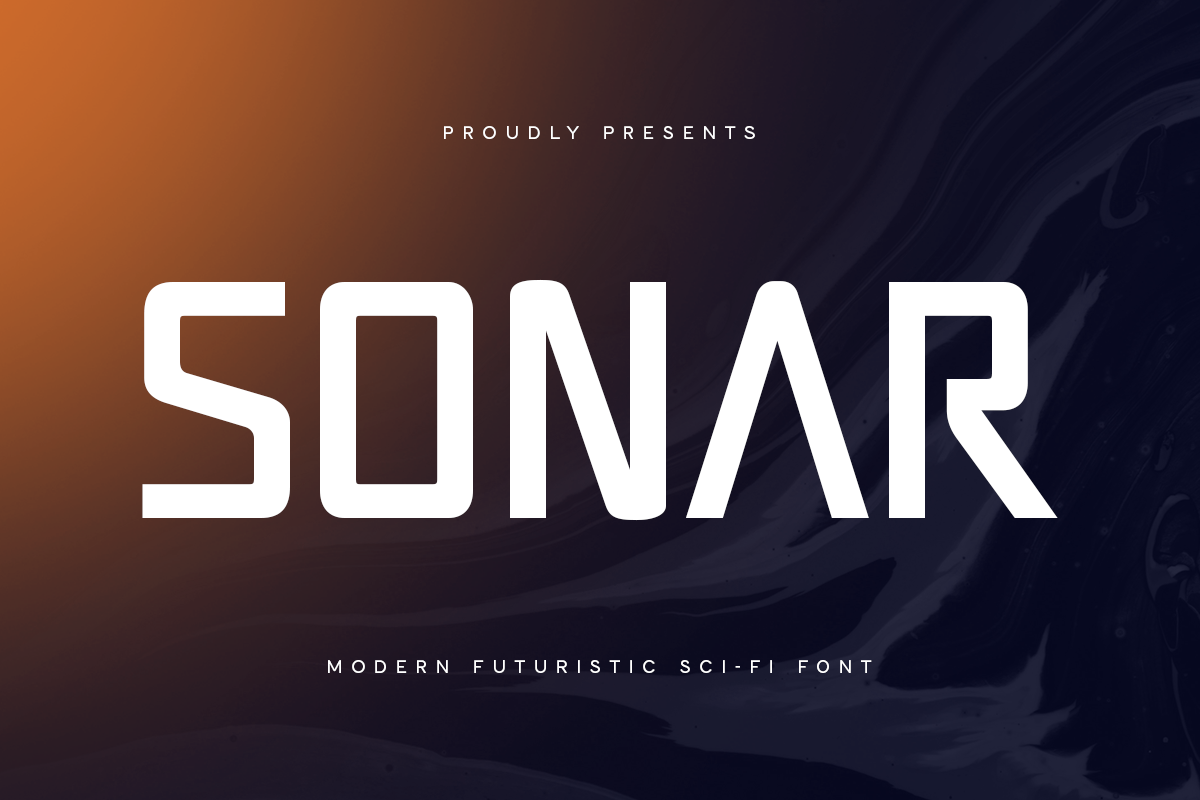
Sonar - Modern Futuristic Scifi Font
Transform your designs with Sonar - the ultimate modern futuristic sci-fi typeface for cutting-edge projects. Sonar delivers exceptional typography crafted specifically for sci-fi, modern, and technology-focused designs. This sleek sans serif font features perfectly balanced letterforms that instantly elevate your projects with a futuristic edge. Ideal for cryptocurrency branding, technology companies, film titles, and sci-fi themed projects, Sonar brings a sophisticated modern aesthetic that ma...